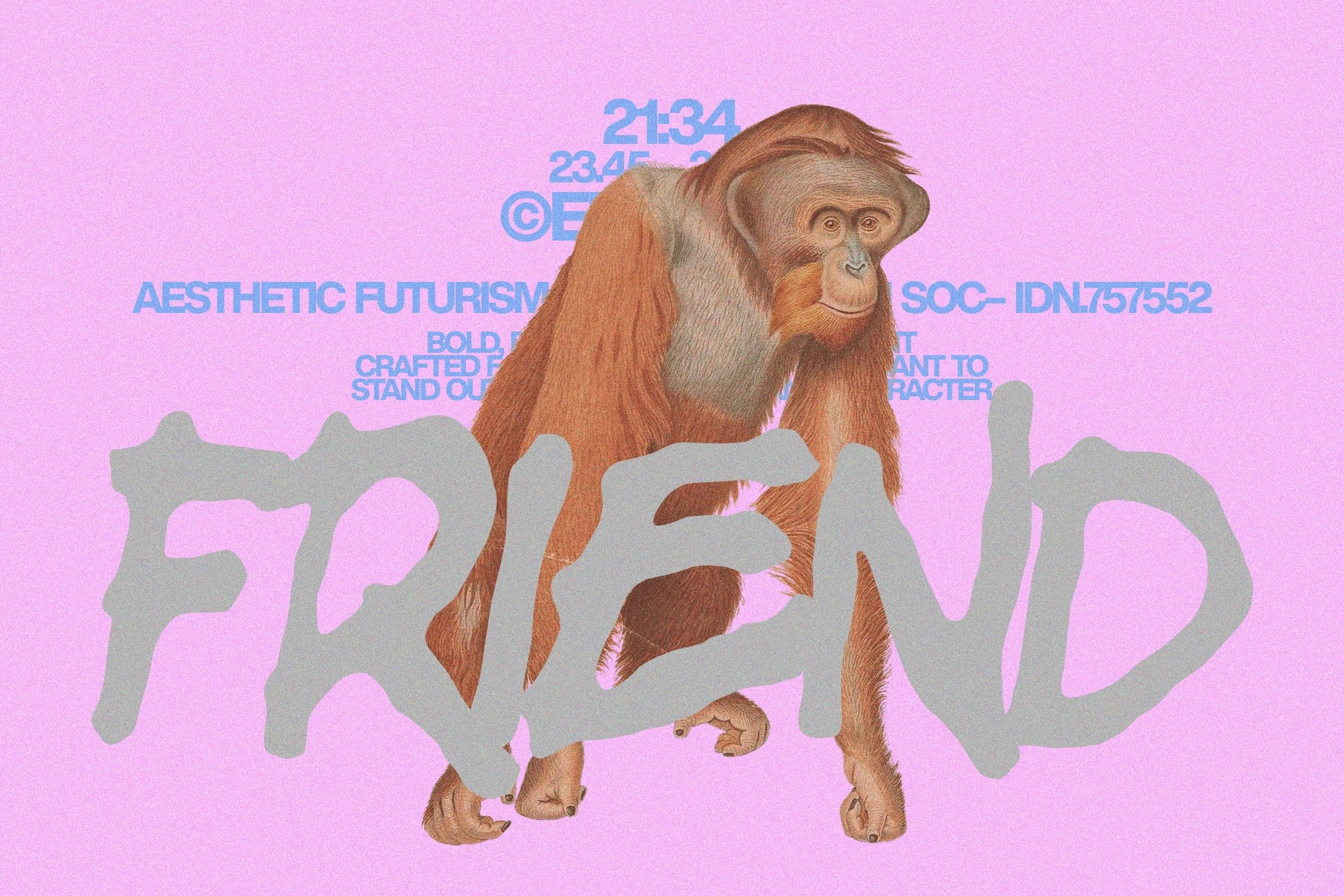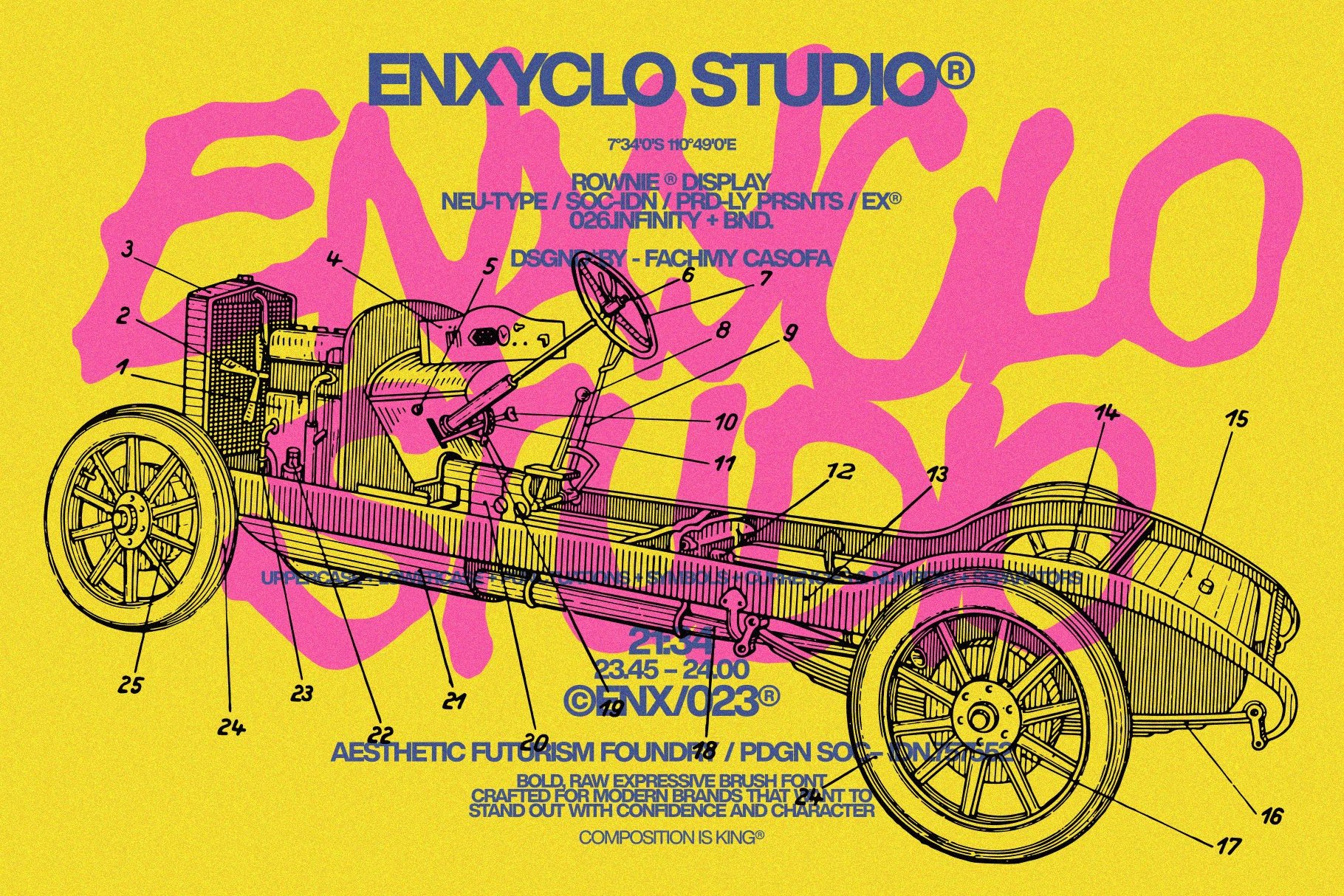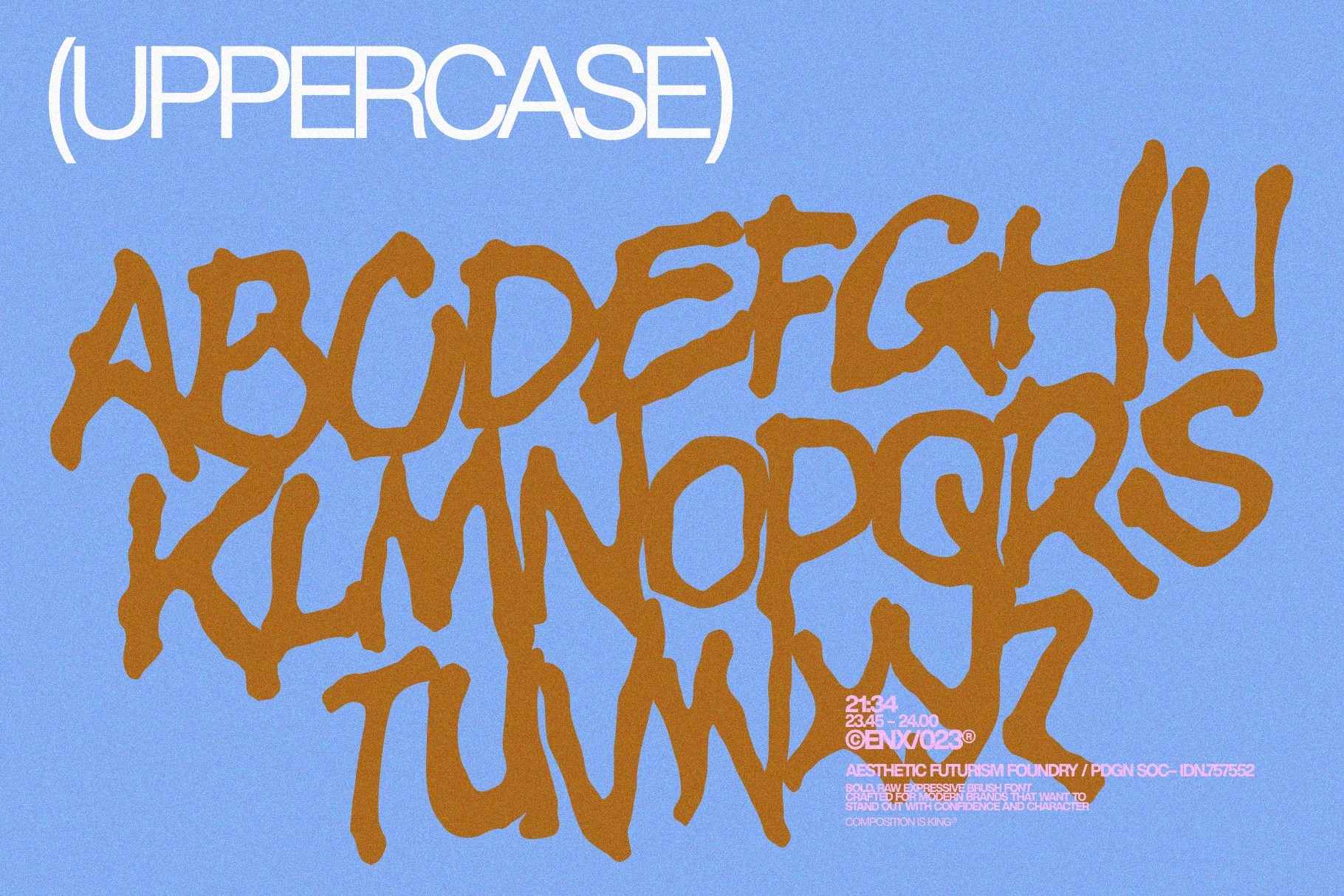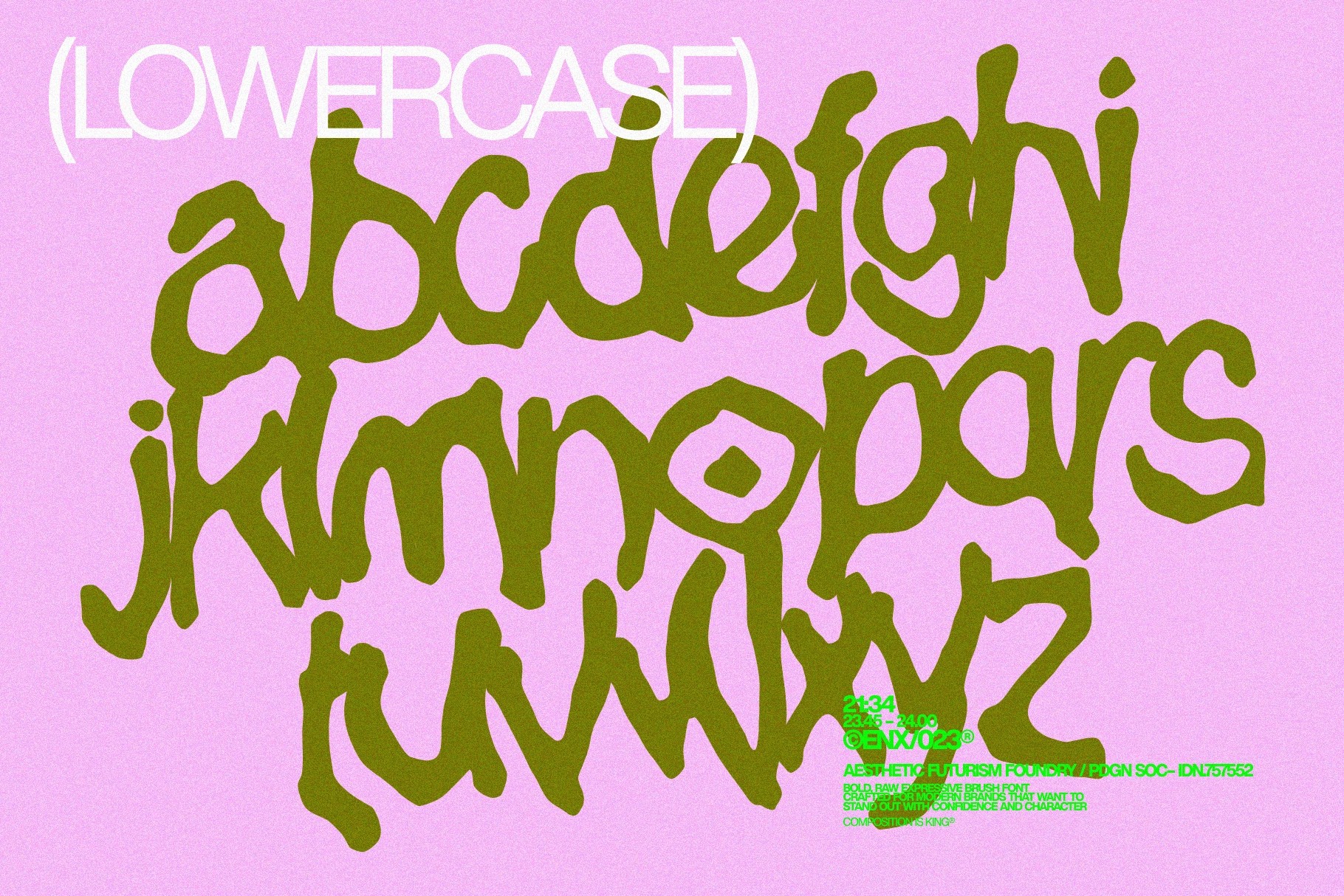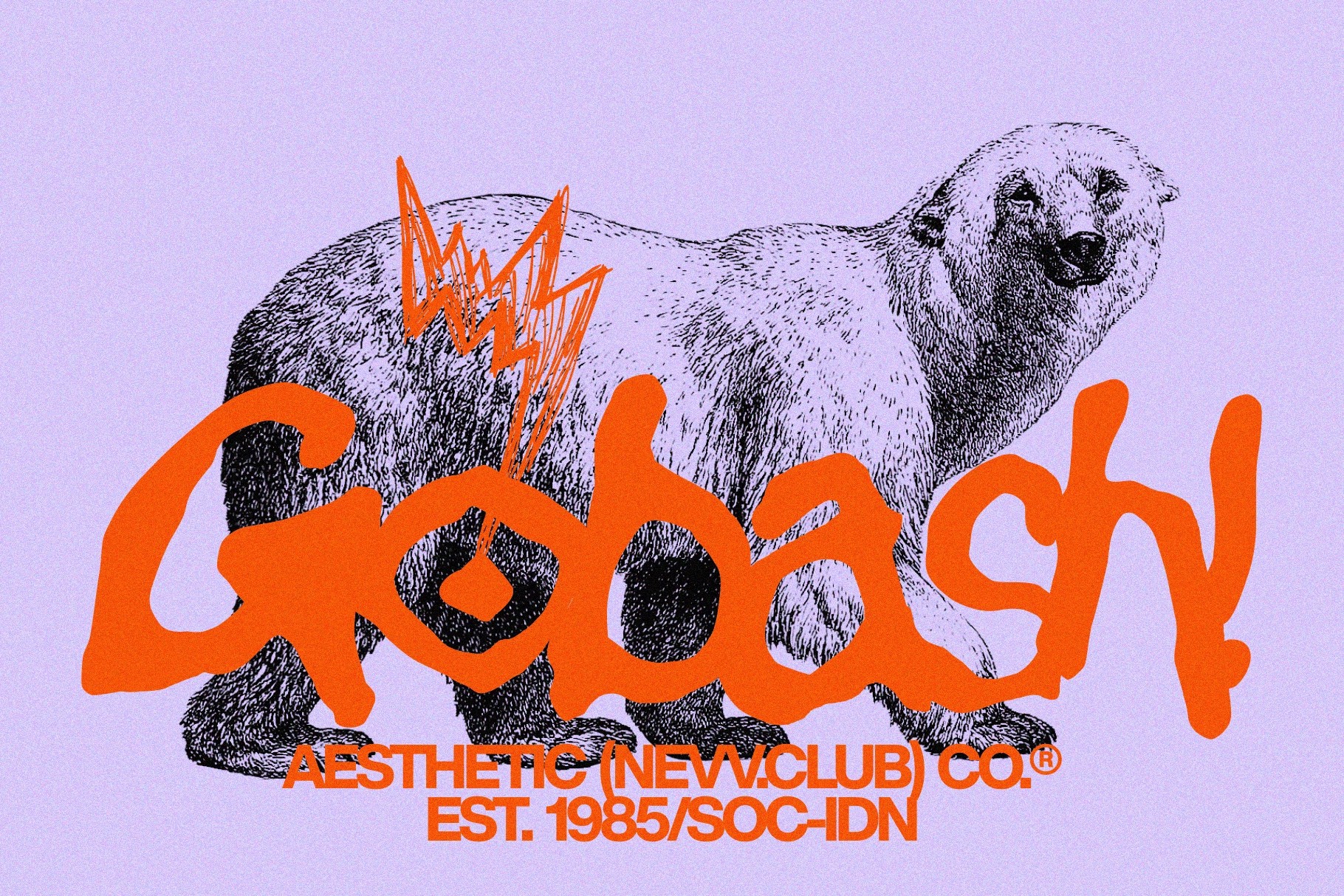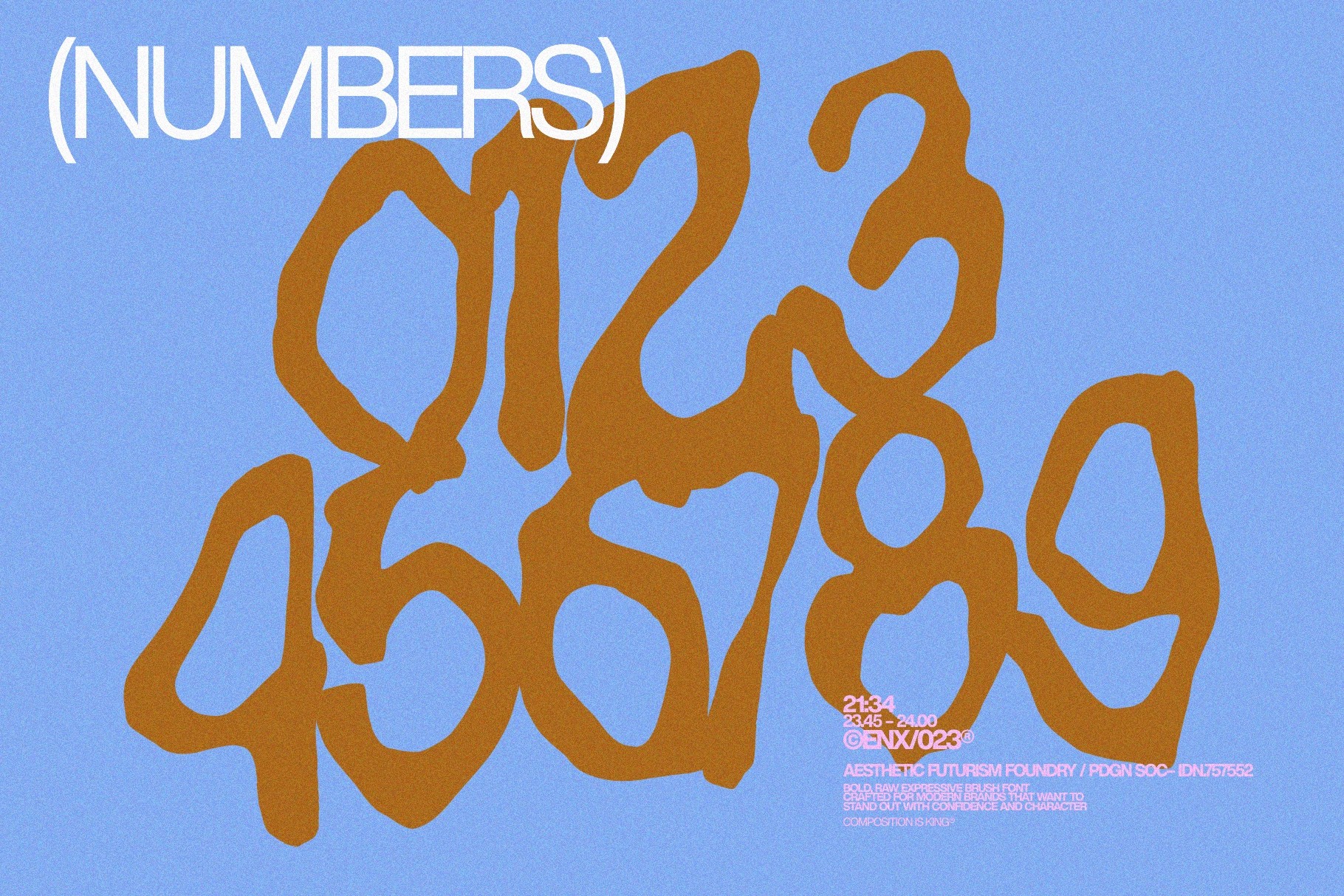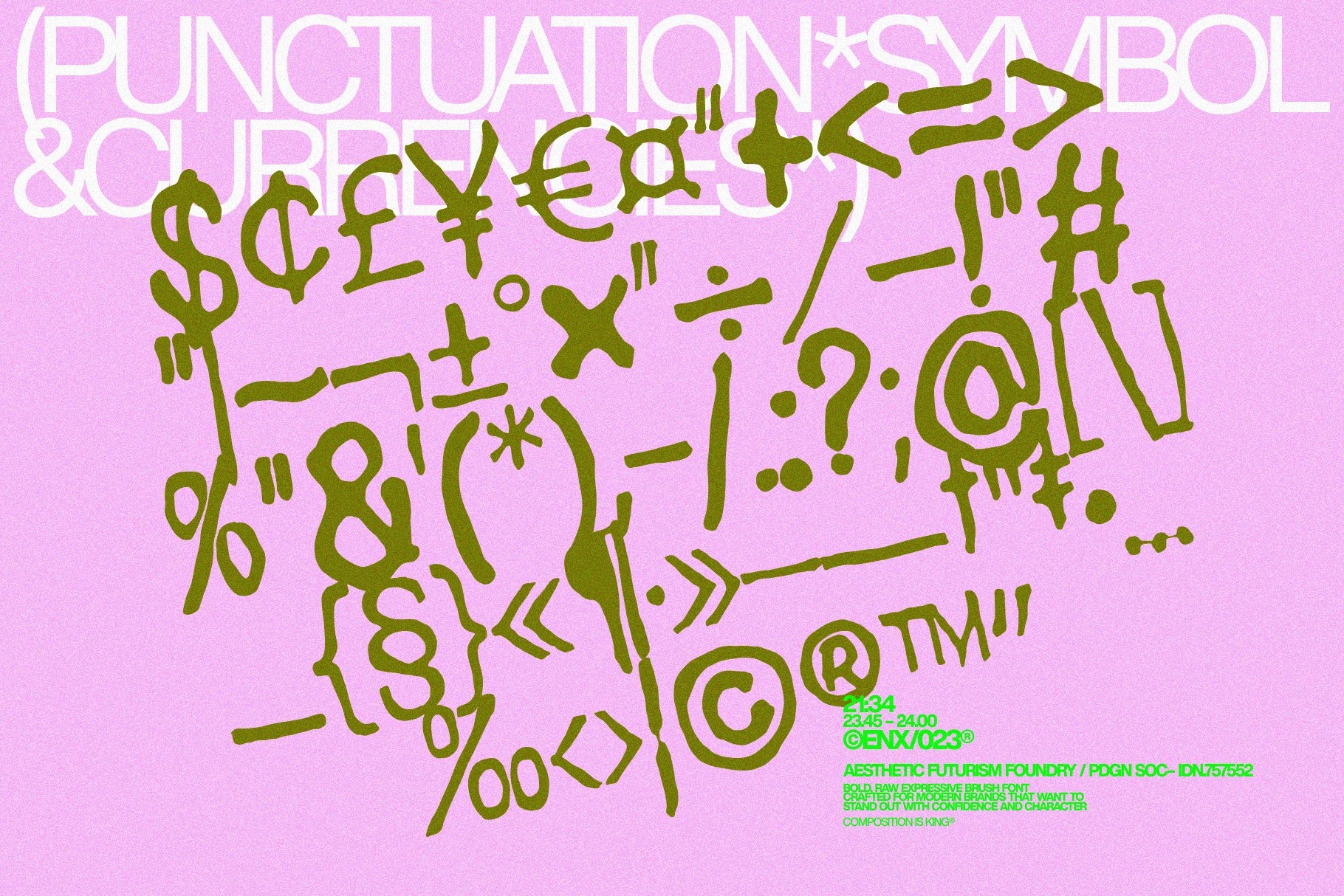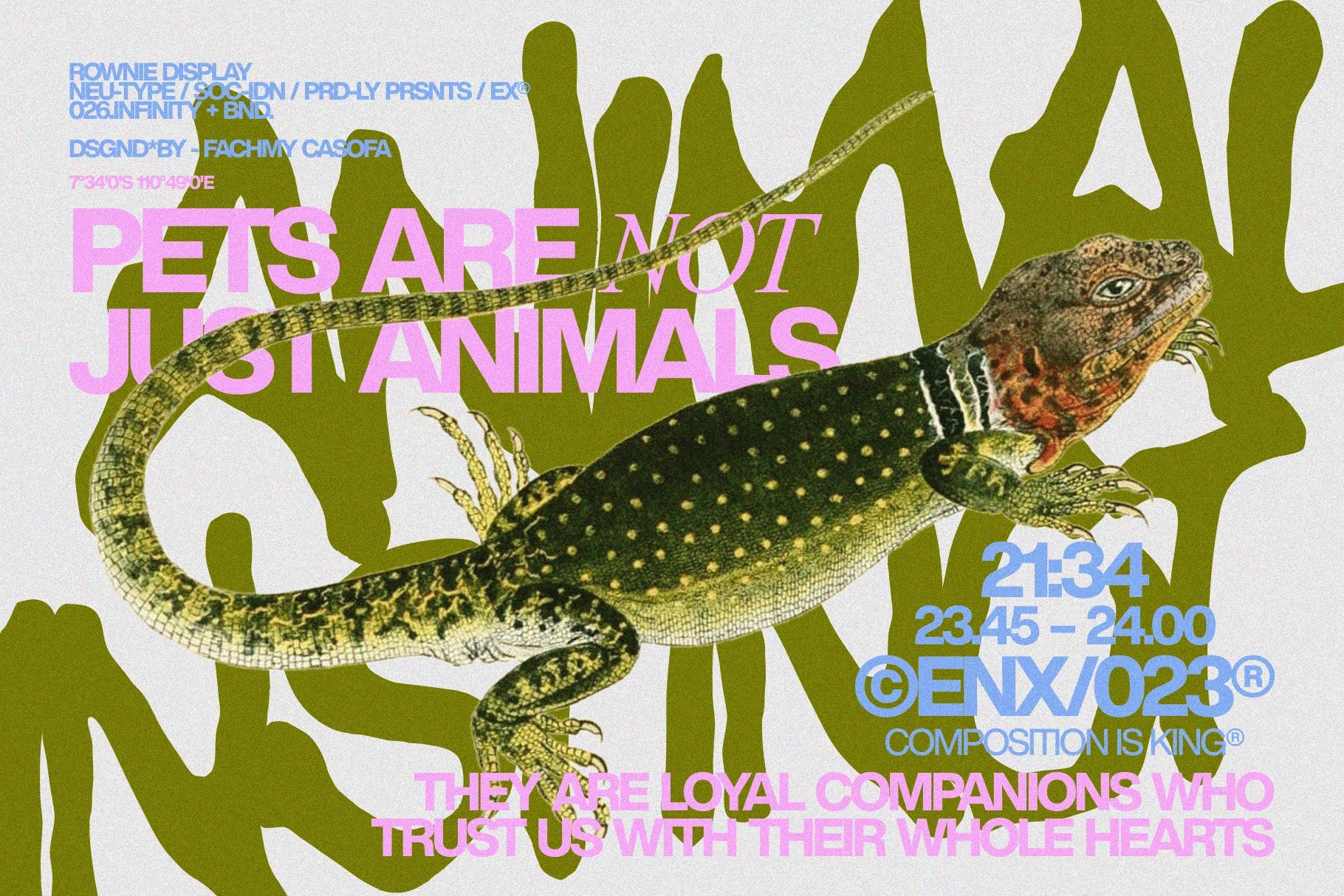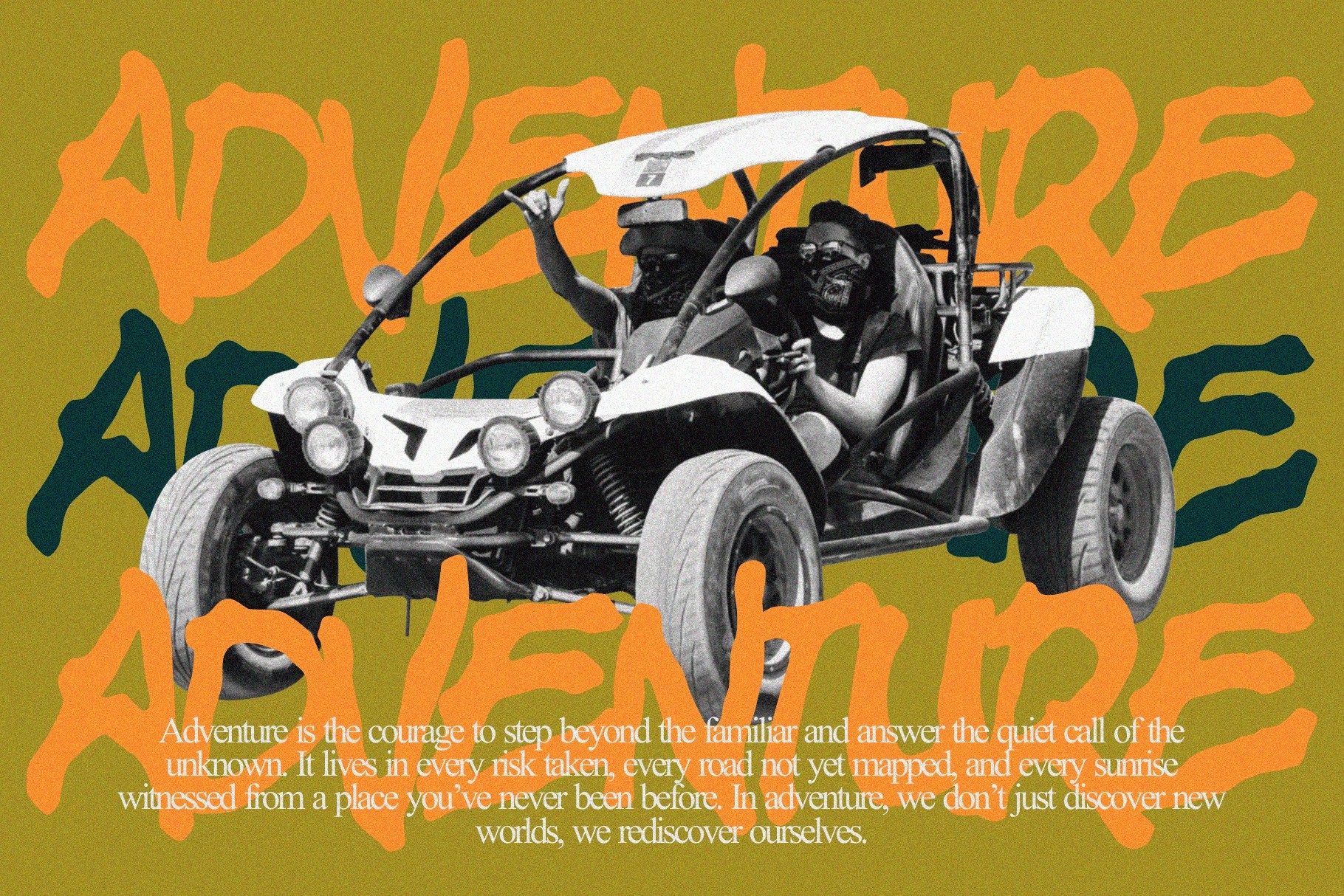
Rownie - Bold Expressive Brush Font
Rownie – Bold Expressive Brush Font is a powerful hand-painted typeface created for brands and creatives who want typography with personality and impact. Built from energetic brush strokes and organic lettering movement, Rownie delivers a raw expressive style while maintaining strong readability and visual balance.
This font captures the spirit of authentic handcrafted lettering, combining gritty brush textures with a modern structure that feels bold, confident, and contemporary. The dynamic strokes and natural imperfections give every word a lively presence, making it perfect for designs that need attitude and character.
Rownie works beautifully for branding, creative logos, poster headlines, packaging, and social media graphics, helping modern brands stand out with a distinctive visual voice.
- Uppercase & Lowercase characters
- Numbers, punctuation & symbols
- Currency symbols
- Hand-painted brush style with expressive strokes